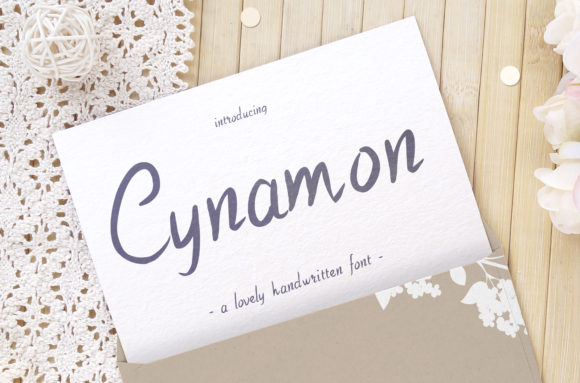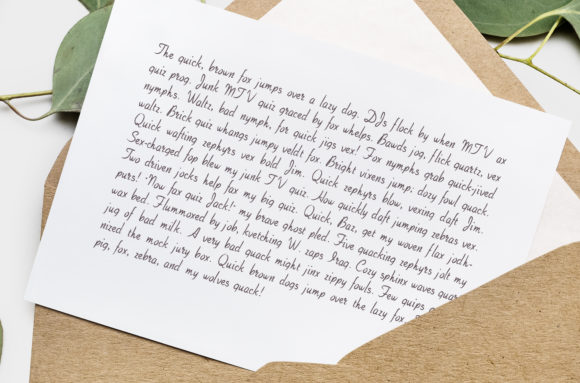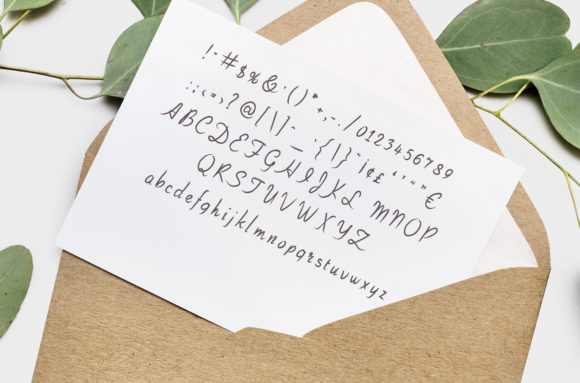
Cynamon Font
About Cynamon Font
Cynamon is an adorable handwritten font, the perfect choice for your most favorite events. This elegant and flowing font is going to look outstanding on wedding invitations, thank you cards, quotes, greeting cards, logos, business cards and every other design which needs a handwritten touch.